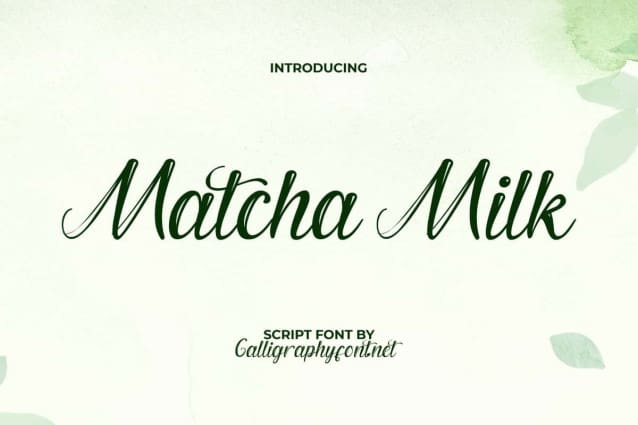
Matcha Milk Font
Matcha Milk Font is a beautiful textured and authentic calligraphy script font inspired from delicious drink. It will make any appearance in your design feel unique, such as advertisements, billboards, book covers, branding projects, brochure, business cards, cover, flyer, greeting cards, header, headline, invitation, label, logos, poster, product designs, quotes, restaurant menu, screen print, stationery, title, watermarks, website, wedding designs, etc.
Matcha Milk Font is a natural and modern calligraphy font created with heart to provide a handmade feel for any business. It will play an important role in whatever your industry, such as bakery or pastries, beauty clinic, beverage trademark, cafe, candy shop, event organizer, fashion, graphic design, handicraft, movie, restaurant, photography, printing, publishing, spa salon, and more.